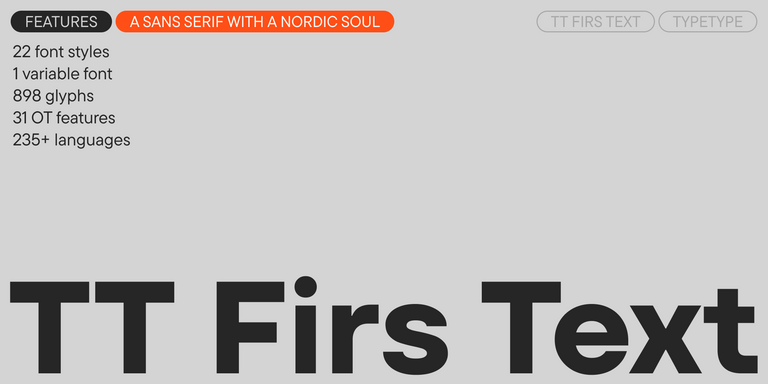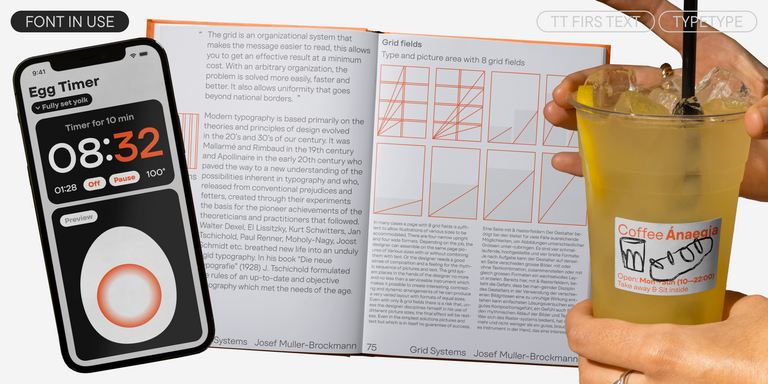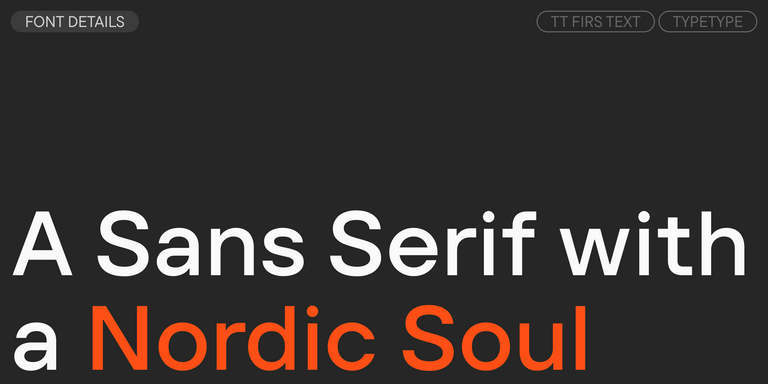
Fonts similar to Eurostile
If you are tired of overused typefaces and are looking for fonts similar to Eurostile, check out our best free-to-try Eurostile alternatives, which have similar characteristics as well as new, unique design features. Some of the fonts belong to the same type category, and others are suitable for the same tasks or have similar traits but stand out for their distinct details or proportions.
Find a great Eurostile replacement font and try to recreate a similar mood and capture the feeling you aim for by using it in your designs. Each font presented on this page is a twin of the Eurostile font, practically identical to it.
TT Firs Neue is a contemporary reincarnation of the good old TT Firs sans serif.
TT Travels Text is a geometric grotesque with wide proportions and specific shapes of circles and fillets, which includes two stylistic sets with completely different natures.
We have released a brand-new font. Meet TT Firs Text—a geometric sans serif with a Nordic character!
A technological font family for game design
TT Autonomous is a modern techno sans serif with wide angular proportions.